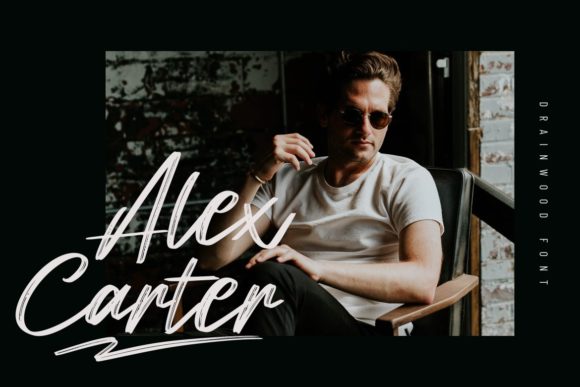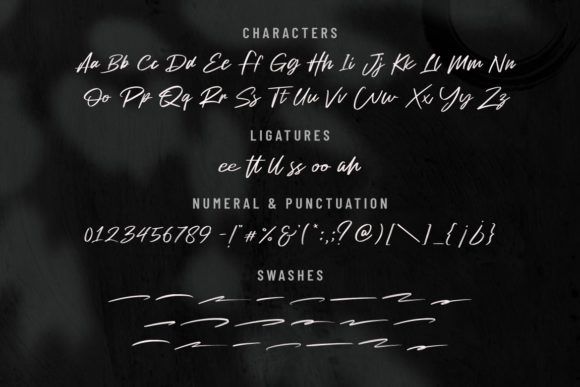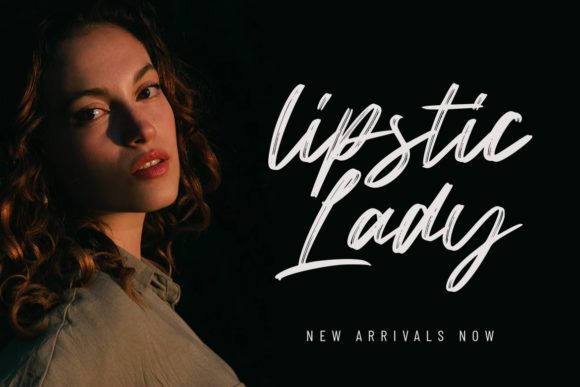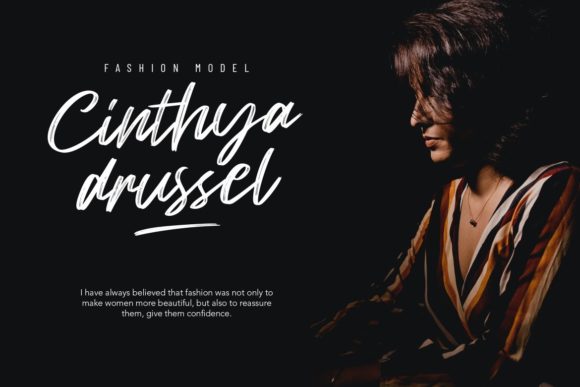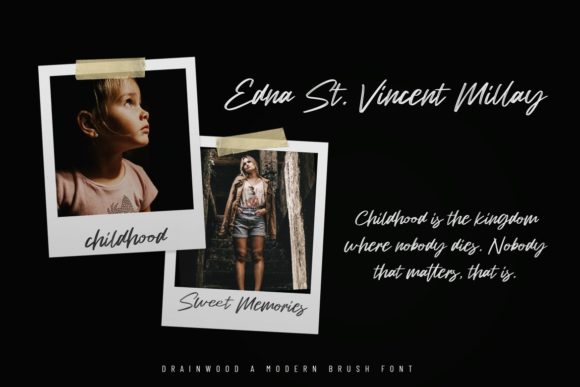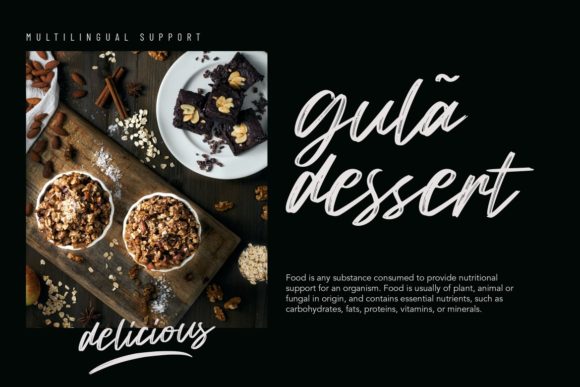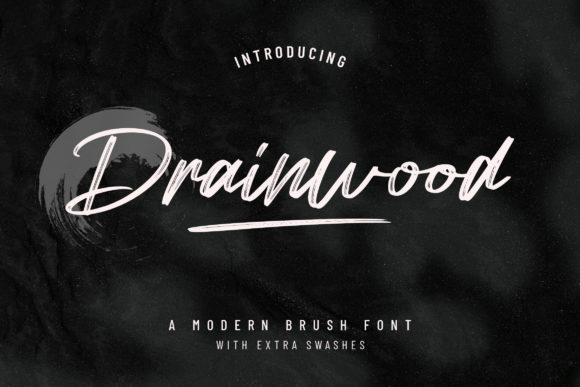
Drainwood Font: Elevate Your Designs with Elegance and Sophistication
Drainwood is a beautiful, cursive and brushed script font that has been making waves in the design community. Whether you’re using it for crafting, digital designing, presentations, or greeting cards making, Drainwood is the perfect choice. Its unique blend of elegance and sophistication makes it an ideal font for designers and crafters looking to add a touch of luxury to their work.
What Makes Drainwood Font Special?
Drainwood font is a stunning example of a cursive and brushed script font. Its distinctive features include:
• Beautiful Cursive Strokes: Drainwood’s cursive strokes are fluid and dynamic, giving your designs a sense of movement and energy.
• Brushed Texture: The font’s brushed texture adds a tactile feel to your designs, making them look like they were created with a brush or a pen.
• Elegant and Sophisticated: Drainwood’s elegant and sophisticated style makes it perfect for designs that require a touch of luxury and refinement.
Uses of Drainwood Font
Drainwood font is versatile and can be used for a variety of design projects, including:
• Crafting: Use Drainwood to create beautiful and unique craft projects, such as handmade cards, scrapbooking, and DIY decorations.
• Digital Designing: Drainwood is perfect for digital designers who want to create stunning graphics, logos, and branding materials.
• Presentations: Add a touch of elegance to your presentations with Drainwood font, making them more engaging and memorable.
• Greeting Cards Making: Create beautiful and heartfelt greeting cards with Drainwood font, perfect for special occasions and events.
Benefits of Using Drainwood Font
Using Drainwood font in your designs offers several benefits, including:
• Unique and Eye-Catching: Drainwood font is unique and eye-catching, making your designs stand out from the crowd.
• Easy to Read: Despite its cursive and brushed texture, Drainwood font is easy to read, making it perfect for body text and headings.
• Customizable: Drainwood font can be customized to fit your design needs, including adjusting the size, color, and style.
Tips for Using Drainwood Font
Here are some tips for using Drainwood font effectively in your designs:
• Pair with Simple Fonts: Pair Drainwood font with simple fonts to create a beautiful contrast and add visual interest to your designs.
• Use for Headings and Titles: Use Drainwood font for headings and titles to add a touch of elegance and sophistication.
• Experiment with Colors: Experiment with different colors to find the perfect match for your design and make Drainwood font pop.
Drainwood font is a beautiful, cursive and brushed script font that is perfect for designers and crafters looking to add a touch of elegance and sophistication to their work. Its unique features, versatility, and benefits make it an ideal choice for a variety of design projects. With these tips and guidelines, you can unlock the full potential of Drainwood font and create stunning designs that leave a lasting impression.